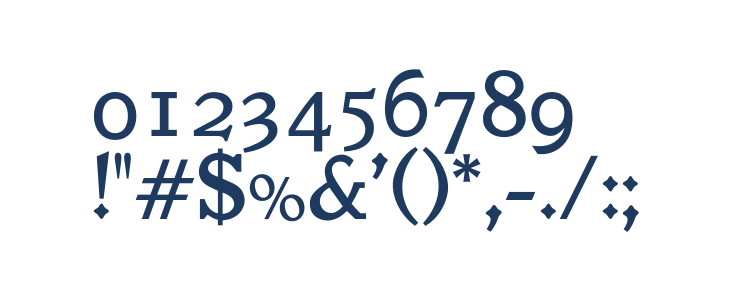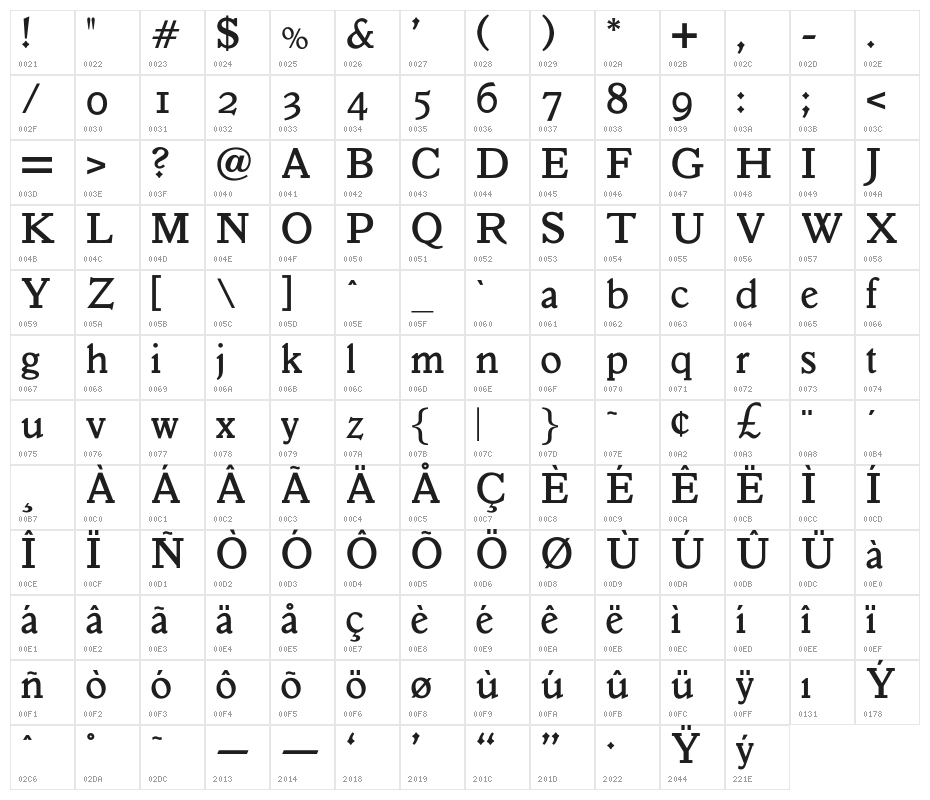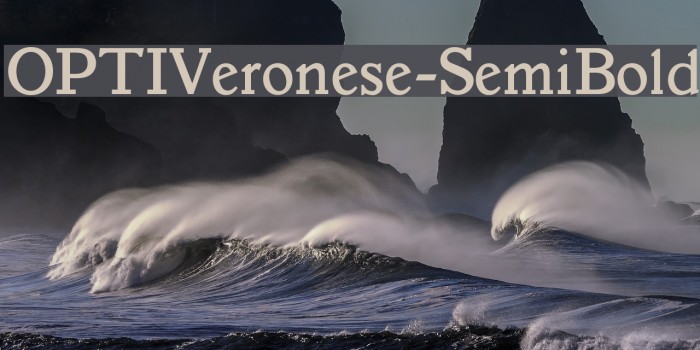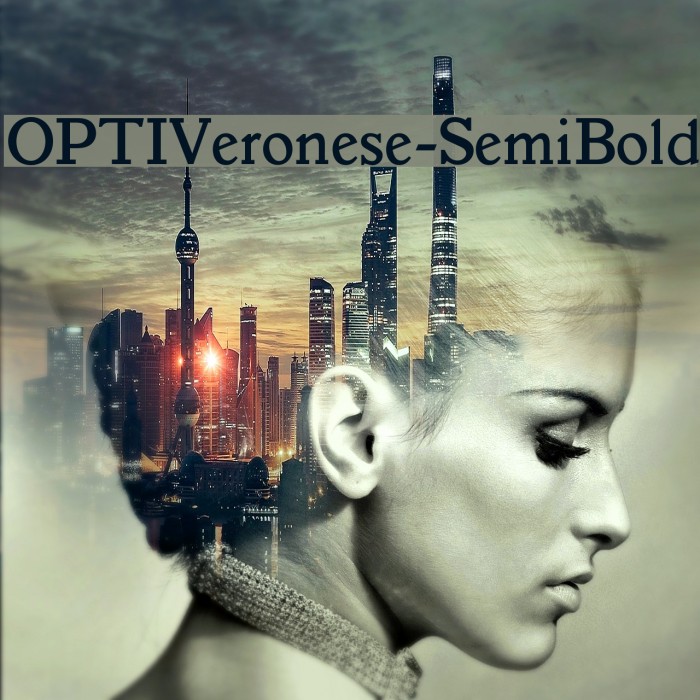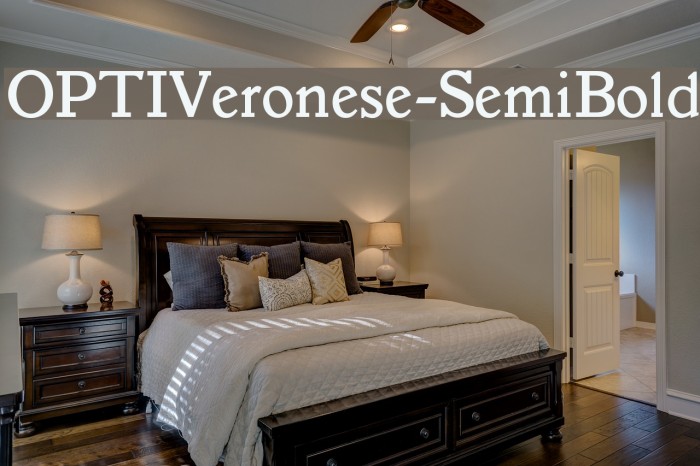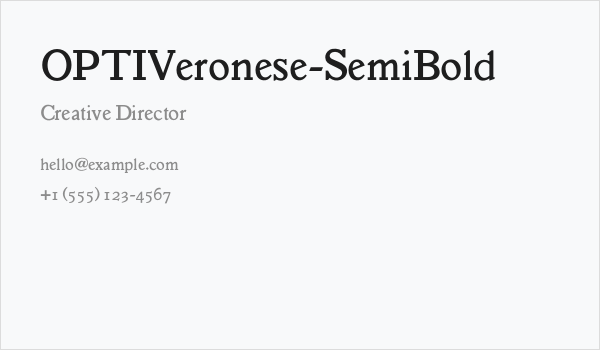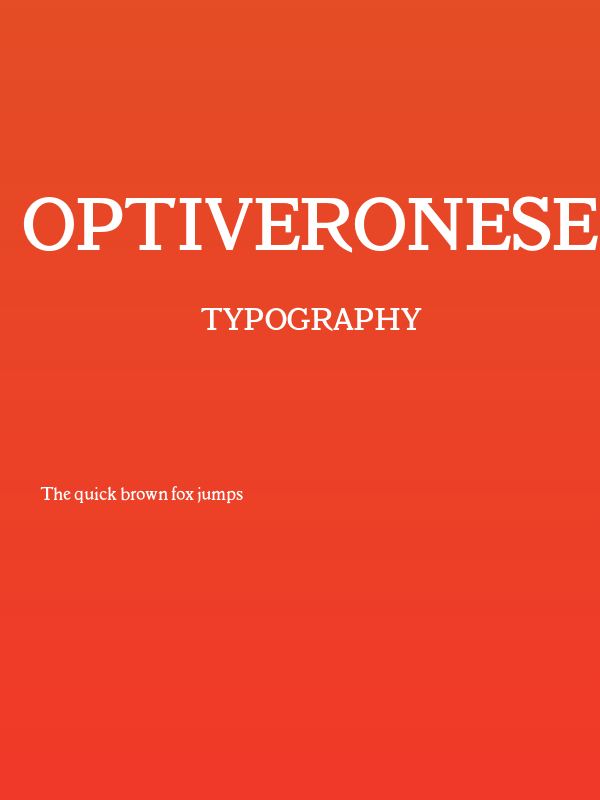
OPTIVeronese-SemiBold Font
OPTIVeronese-SemiBold Description
This typeface exudes a classic elegance with its semi-bold weight, offering a strong yet refined presence. The characters are well-balanced, featuring a harmonious blend of thick and thin strokes that provide a medium contrast. The serifs are distinct and slightly bracketed, adding a touch of sophistication. The uppercase letters are stately and commanding, while the lowercase letters maintain a graceful flow. Numerals are clear and legible, making them suitable for a variety of applications. The special characters are thoughtfully designed, ensuring consistency throughout the typeface. Overall, this font is versatile, suitable for both traditional and modern contexts.
| Proposed Projects | Ideal for editorial design, book covers, branding, and formal invitations. |